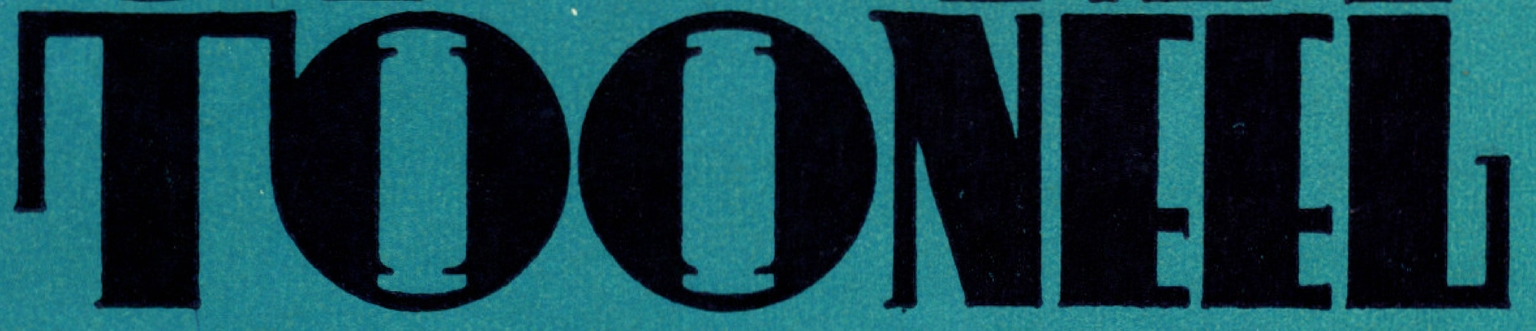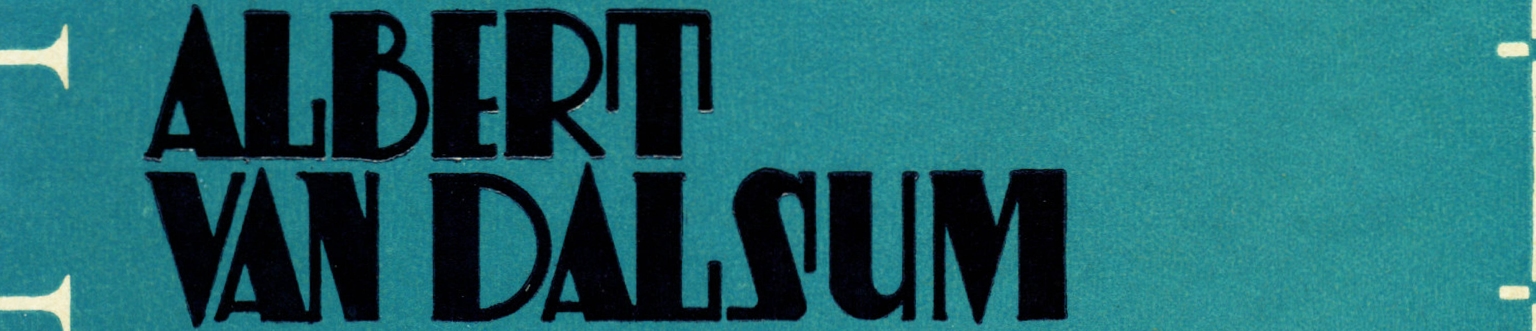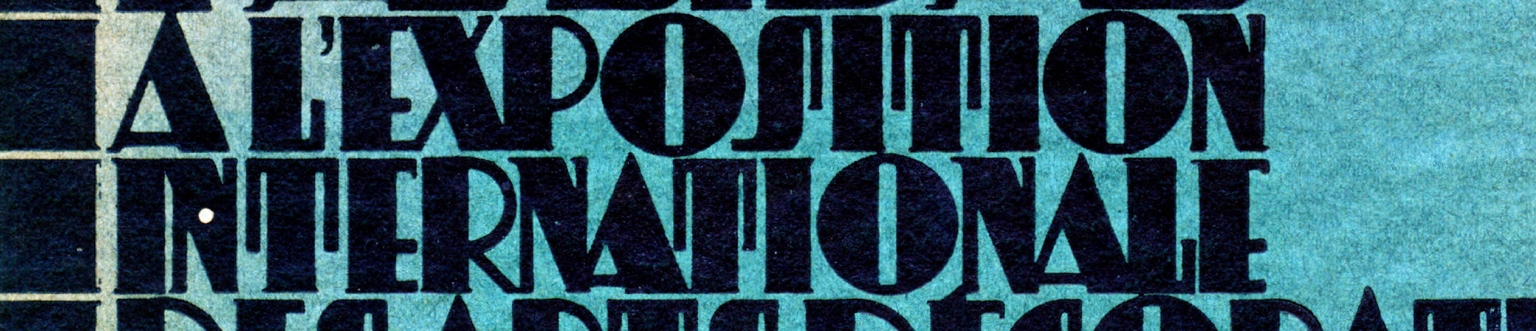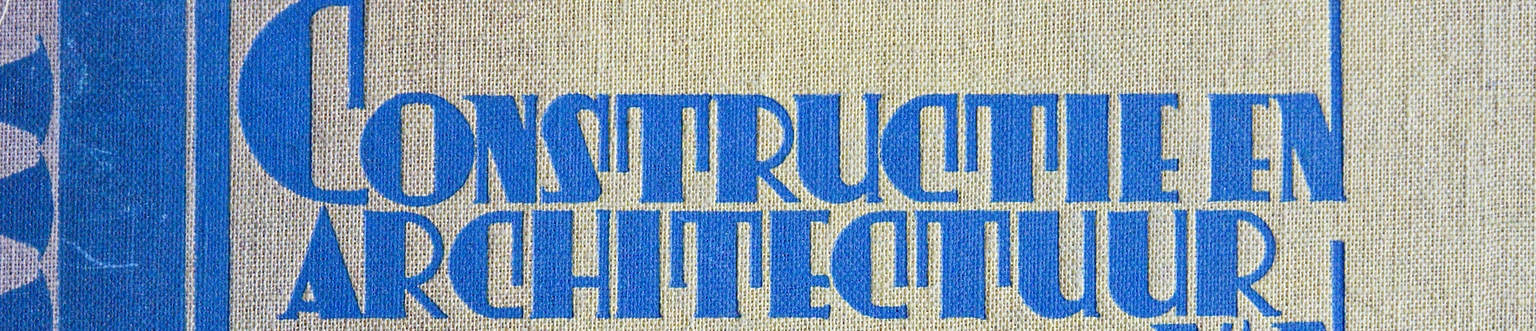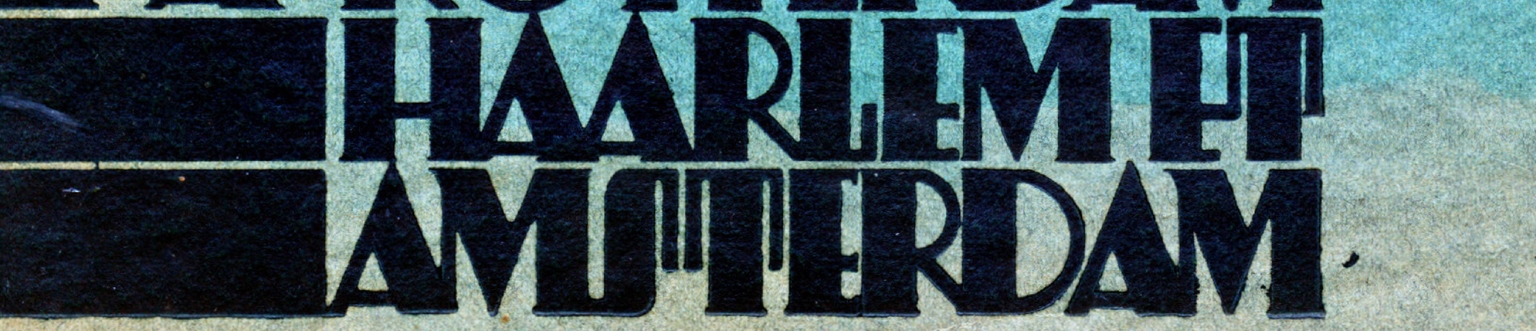
Antonius
Antonius is a Deco-style display typeface designed by Ramiro Espinoza, inspired by the distinctive lettering of Dutch graphic designer Anton Kurvers (1889–1940). Active in the 1920s and ’30s, Kurvers created a number of striking book covers featuring bold, geometric letterforms that reflect both the decorative richness and expressive eloquence of the period. Editions such as Menschen op het Tooneel and De Meesters en het Pad showcase his unique typographic voice, which stood out for its angular elegance and expressive simplicity.
With Antonius, Espinoza has revived and expanded these letterforms into a complete typeface that captures Kurvers’ distinctive balance of ornament and function. Its narrow proportions, sculptural terminals, and rhythmic spacing make it ideal for editorial headlines, book design, websites, signage, packaging, and identity systems that call for a refined historical touch.
More than a tribute, Antonius reimagines the typographic sensibility of a designer who left a quiet but lasting mark on Dutch visual culture.